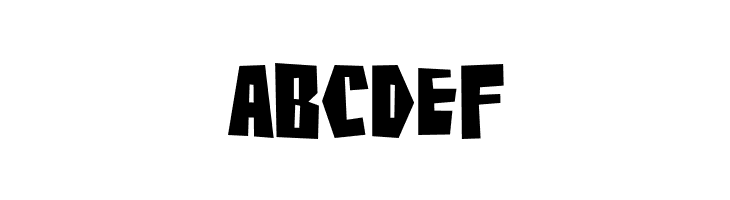
Luna Domestic Font
- Font: Luna Domestic
( Fonts by Astigmatic One Eye Typographic Institute - Brian J. Bonislawsky - astigmatic.com )
A bold, angular font with a strong, industrial aesthetic.